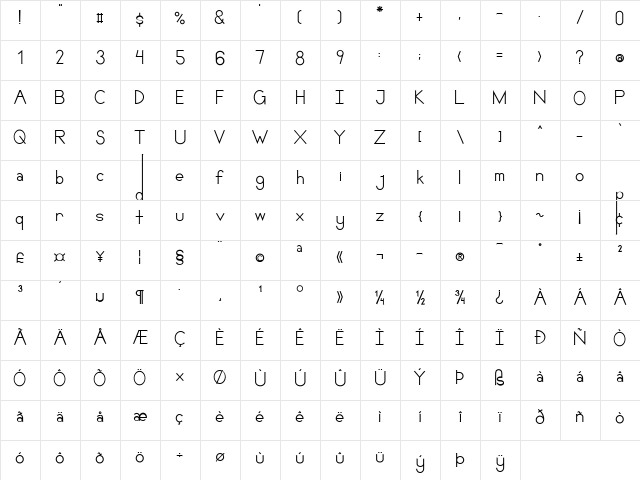
Santario Regular
Design Context for Santario Typeface
Santario is a composed and adaptable typeface that performs quietly and consistently across a wide range of design contexts.